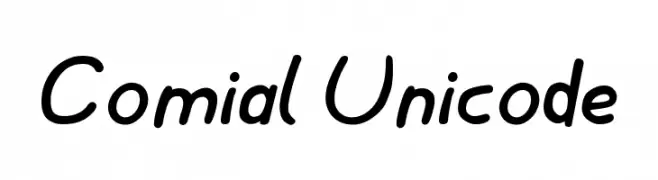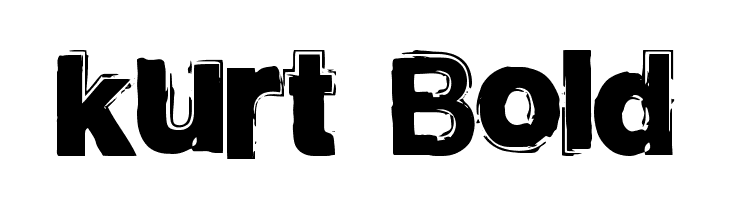
A bold, angular font with a runic, italicized style.
A bold, modern, and slightly condensed italic font with clean lines.
A clean, modern monospaced typeface with uniform spacing and minimal stroke contrast.
A bold, distressed font with rough, textured edges.
A whimsical, handwritten font with playful curls and swirls.